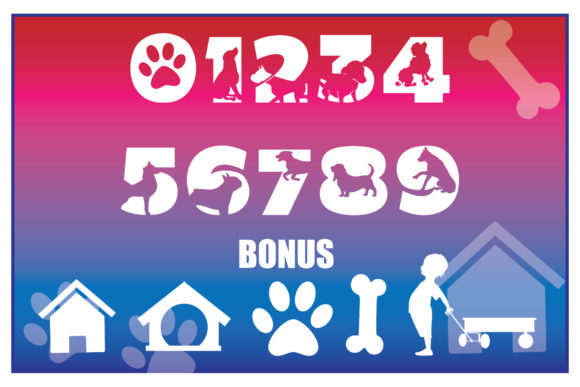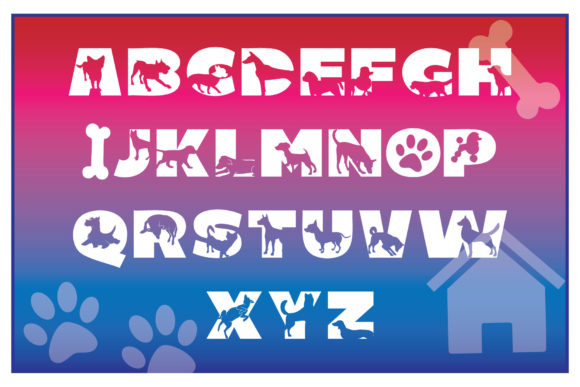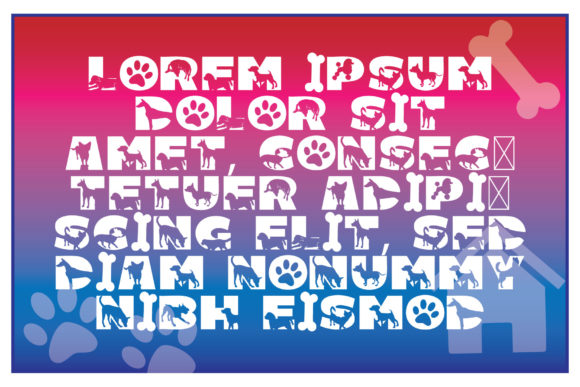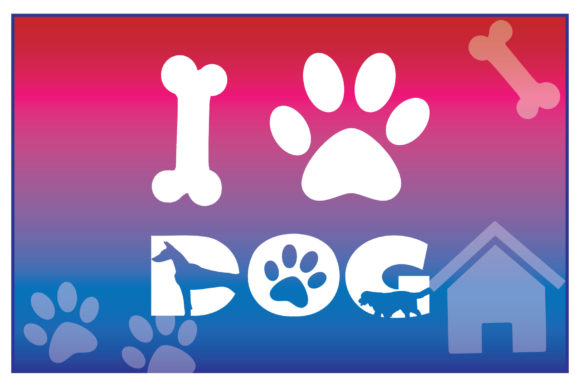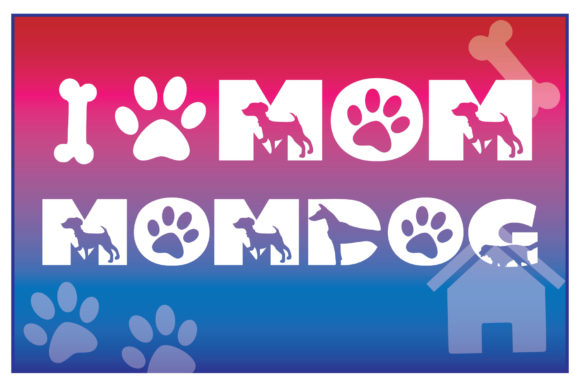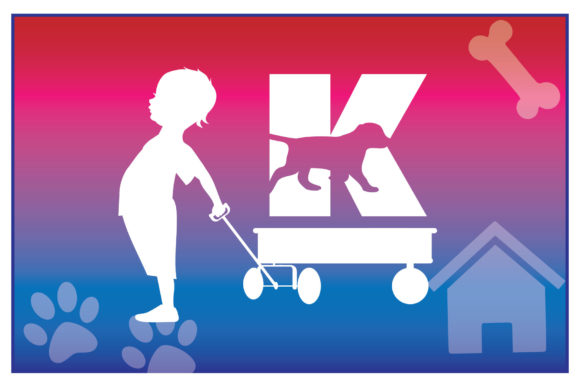
Introduction to Bok Dog Font
Bok Dog is a cool, thick lettered and friendly decorative font.
No matter the topic, this font will be an incredibly asset to your fontsโ library, as it has the potential to elevate any creation .
Key Features of Bok Dog Font
Why Choose Bok Dog Font?